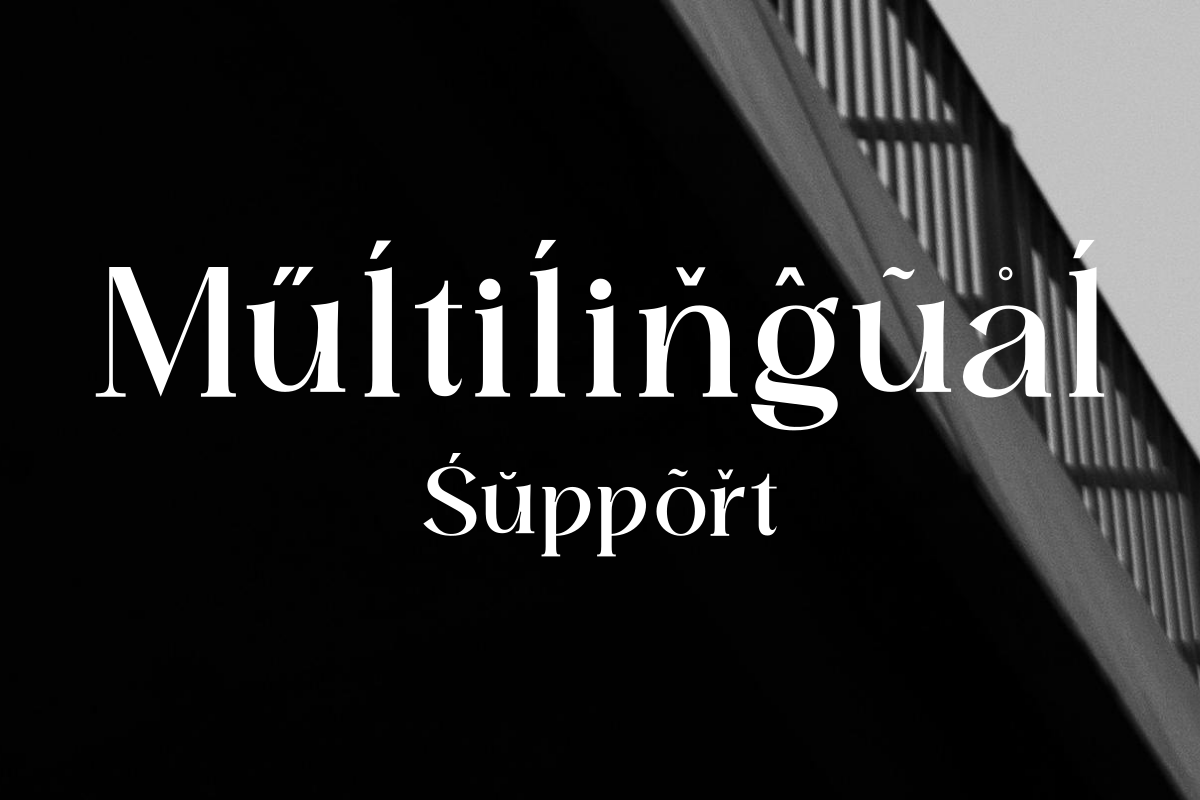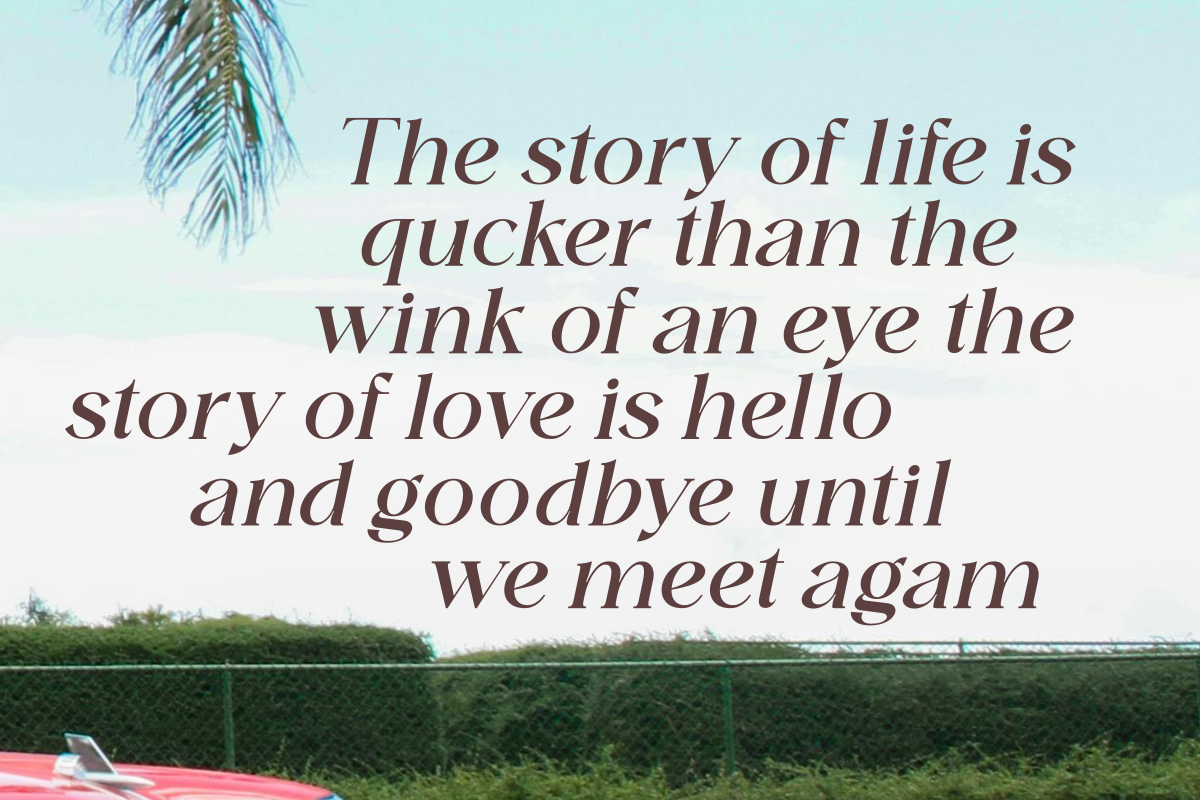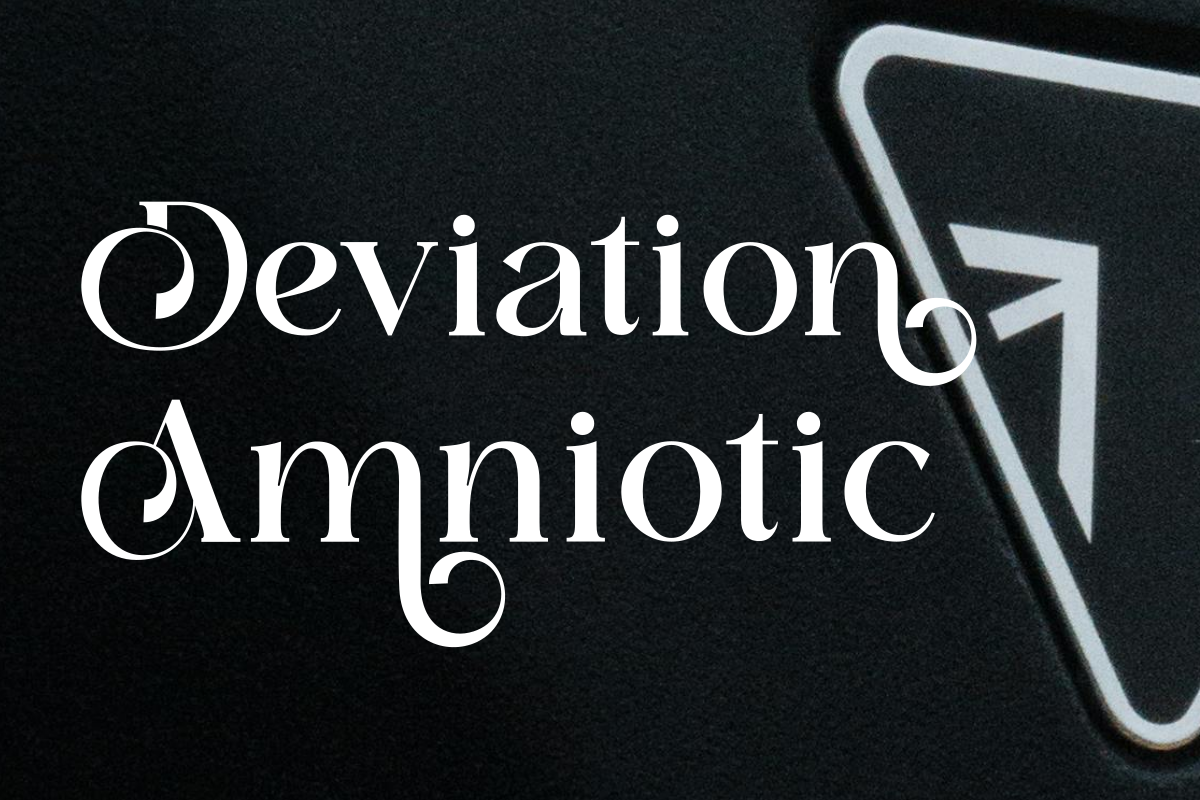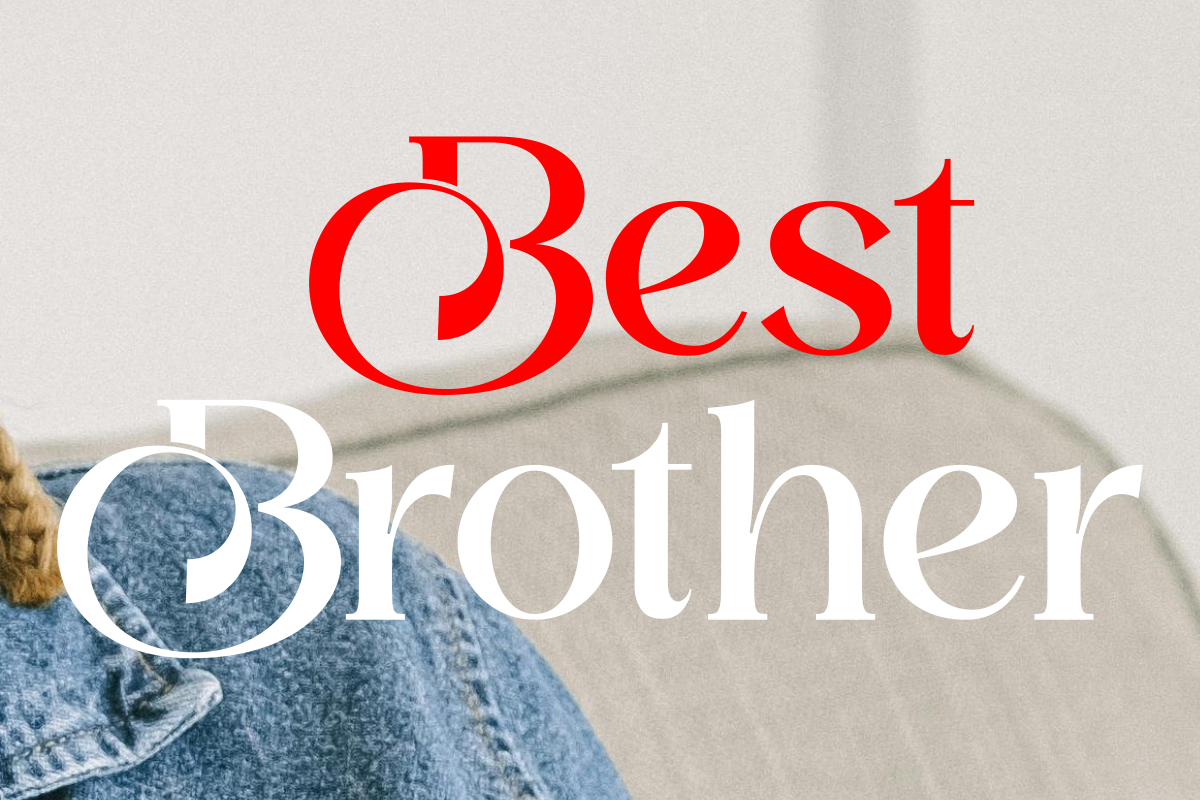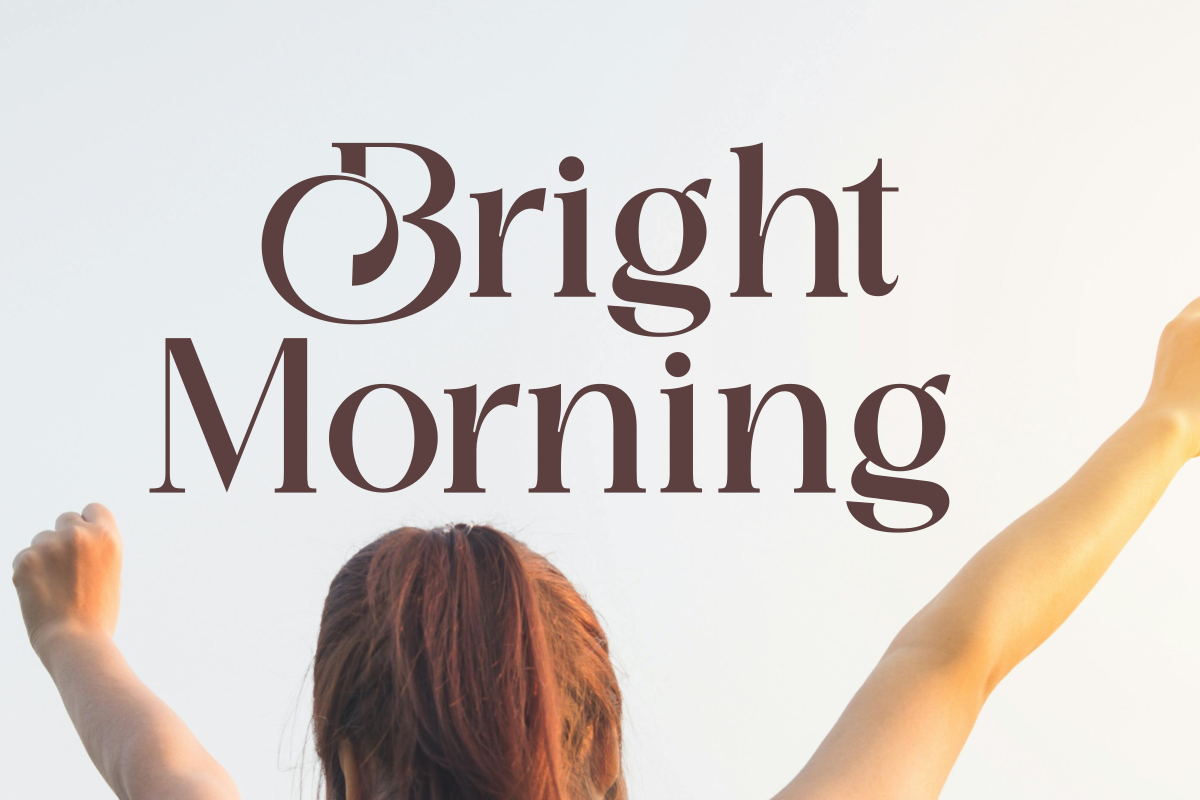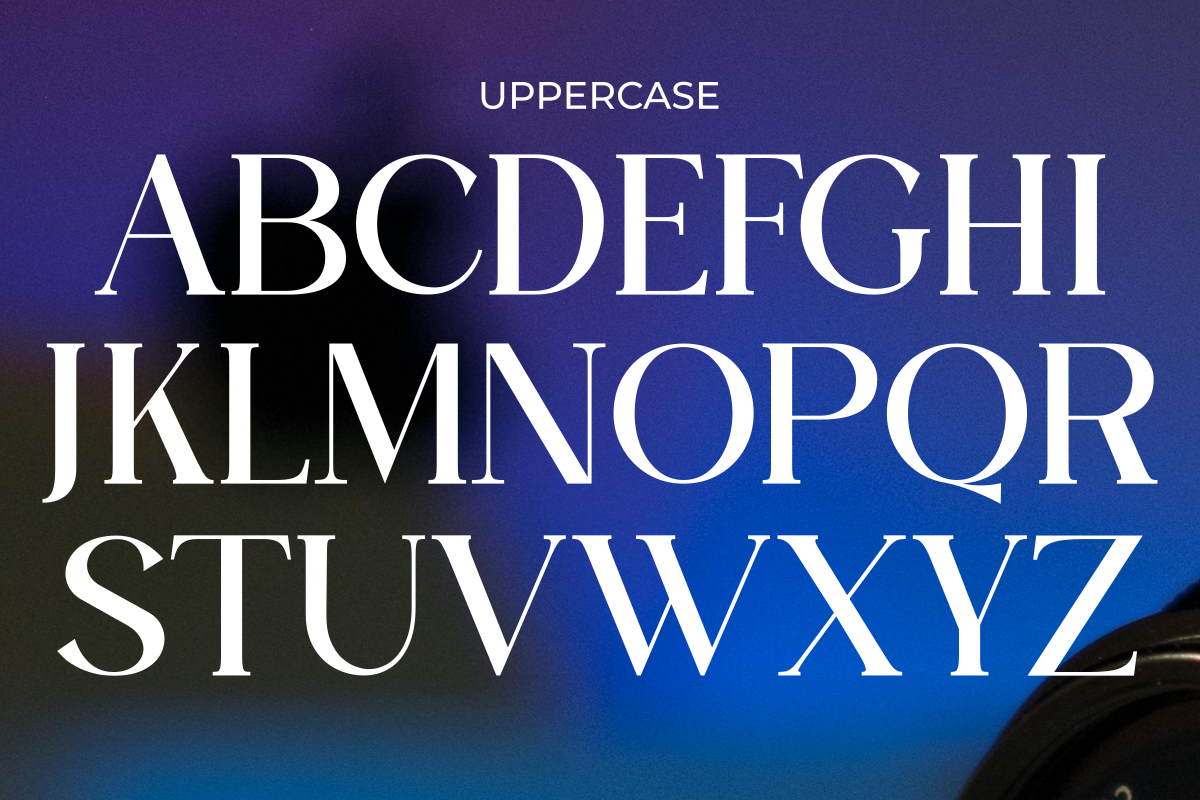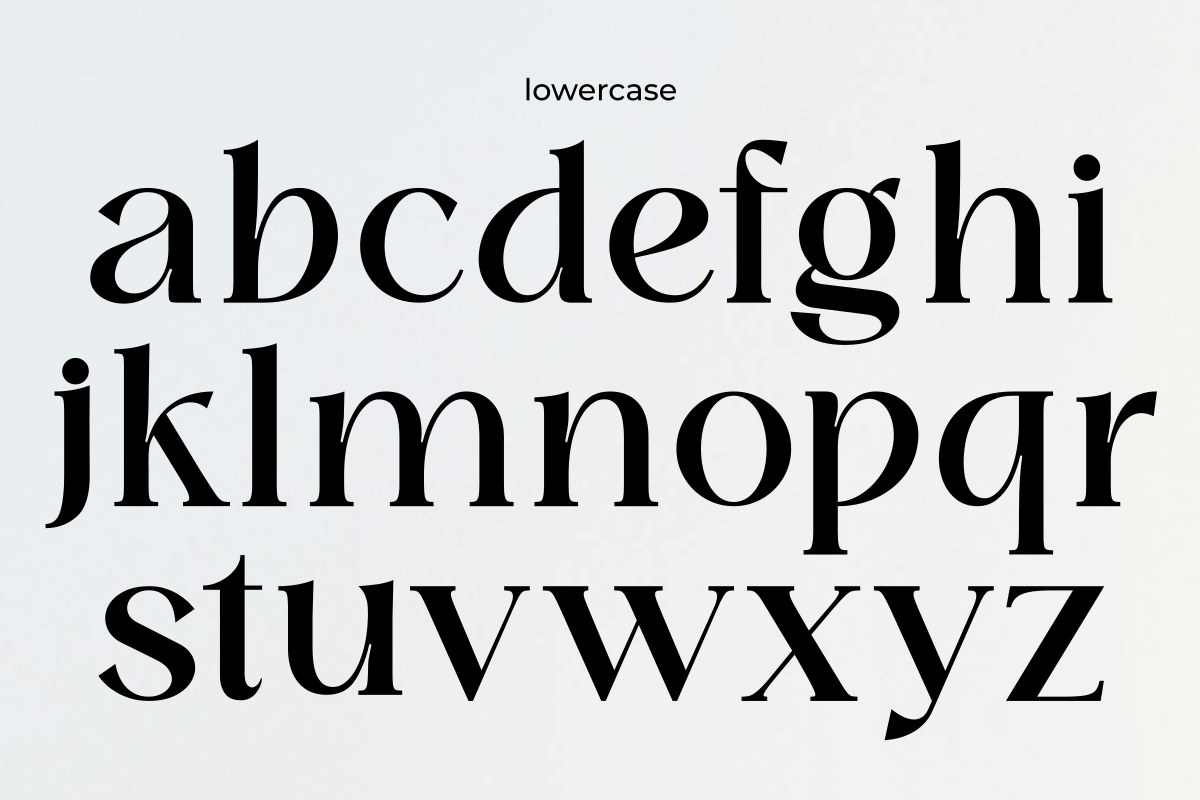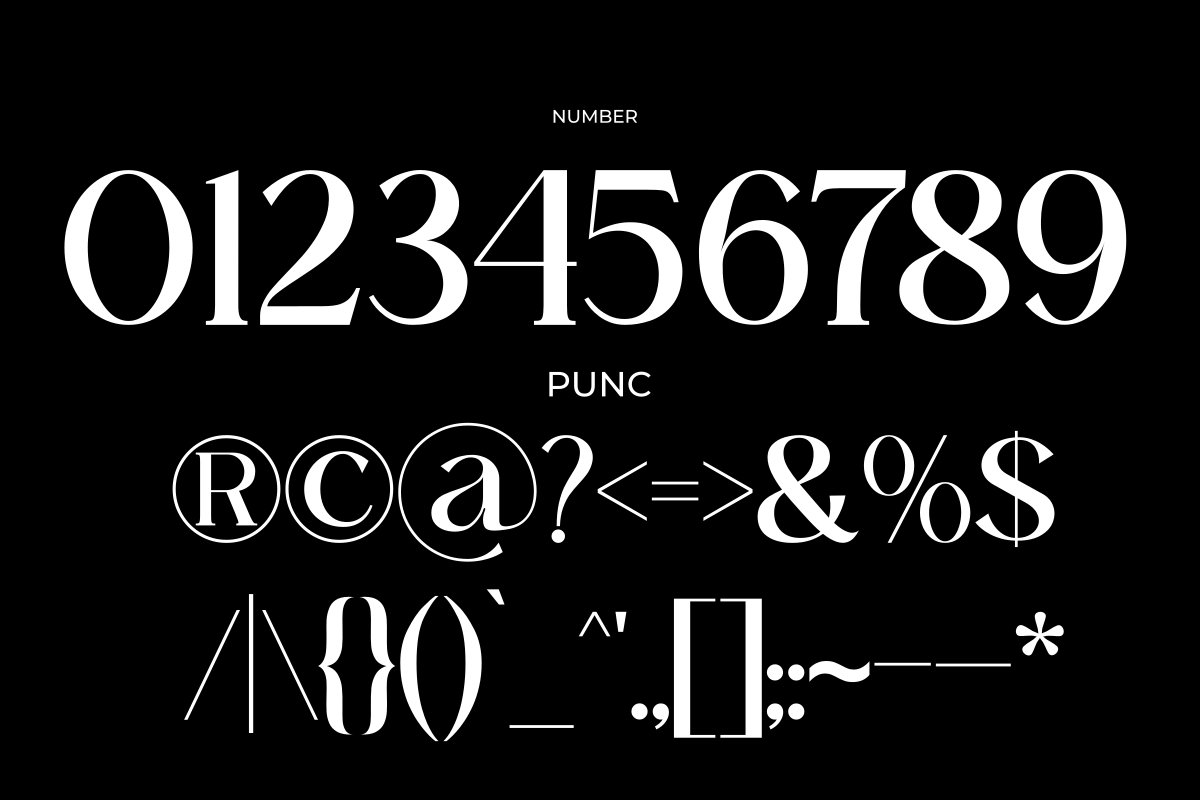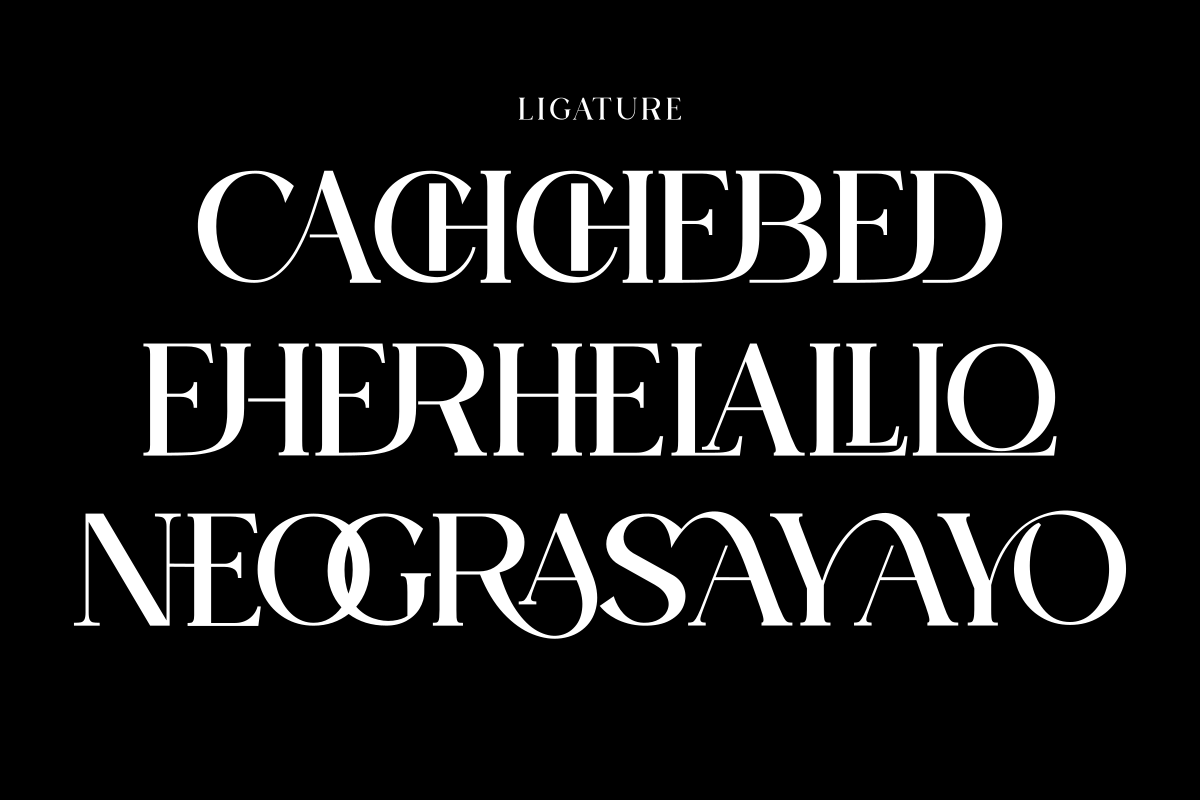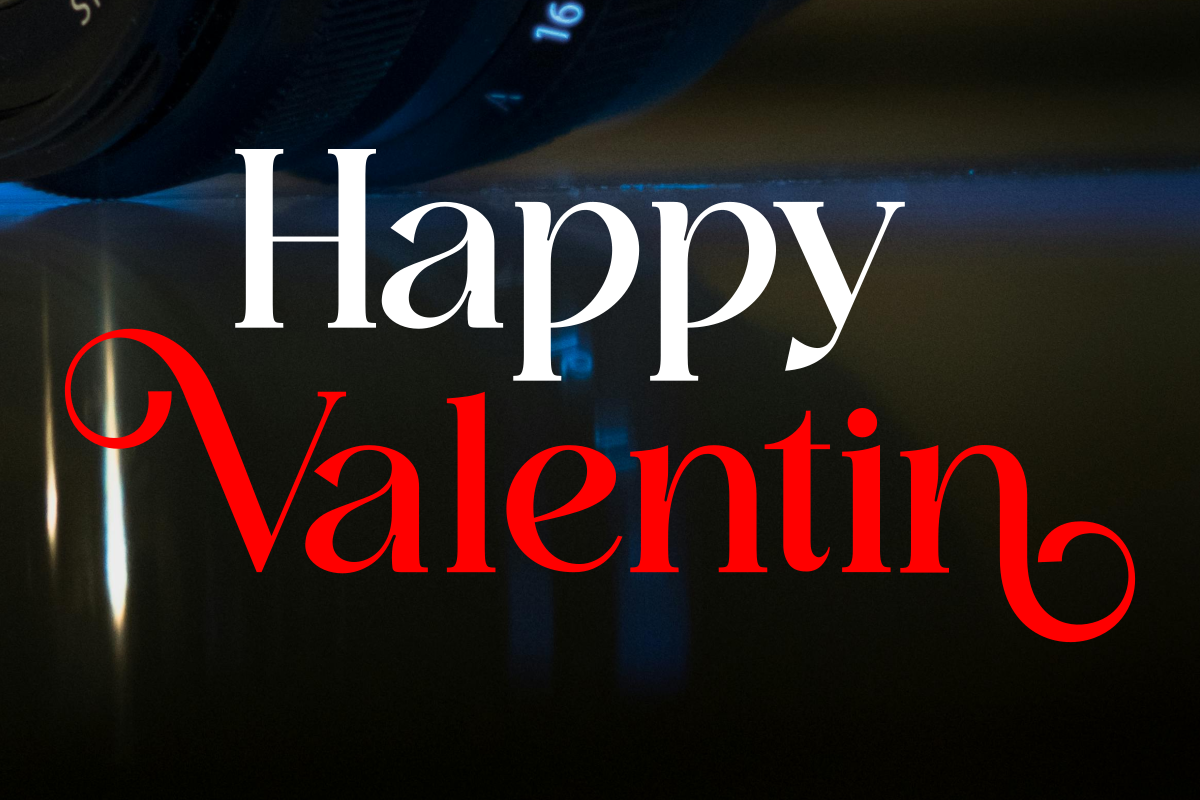
Domilla
Domilla is a premium serif font designed to exude luxury, elegance, and professionalism. With two captivating styles, Regular and Oblique, Domilla is the perfect choice to enhance the visual identity of any design project